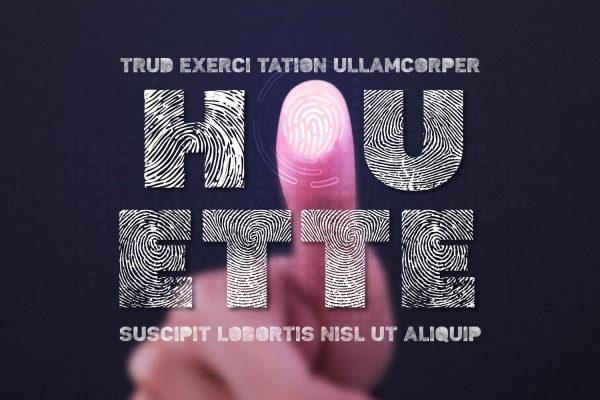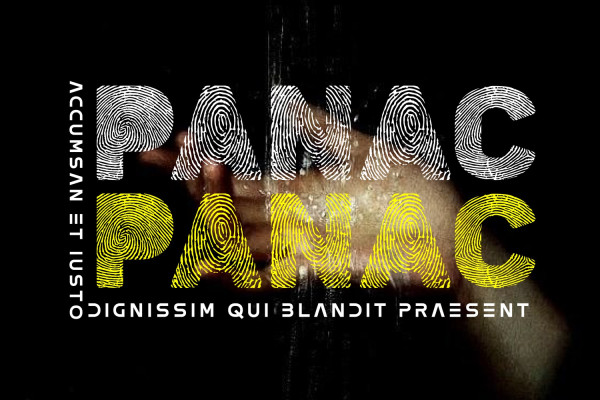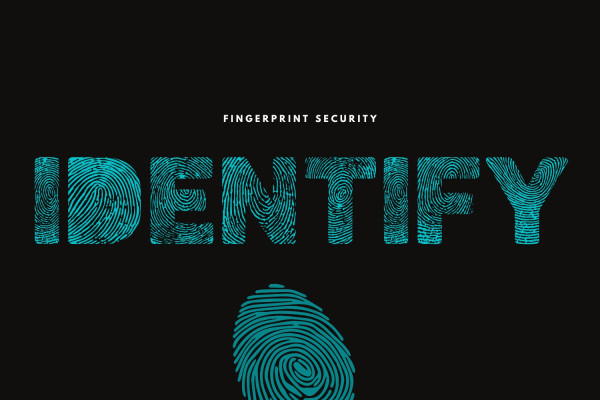
Identify Font
iDentify Font is a cool, useful and unique decorative font. It’s a simple, fancy and playful display font. Whether you use it for cartoon related designs, children games or just any creation that requires a lovely touch, this font will be an amazing choice. You can use it for various projects, such as blog posts, logos, branding, ads, invitations, greeting cards, planners, photo albums, decorations, and much more.